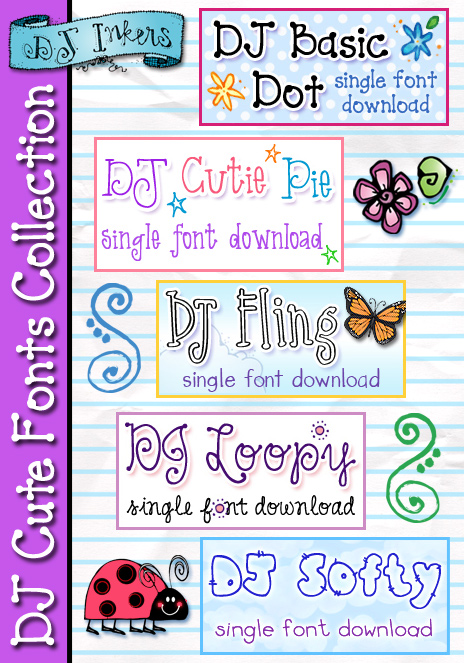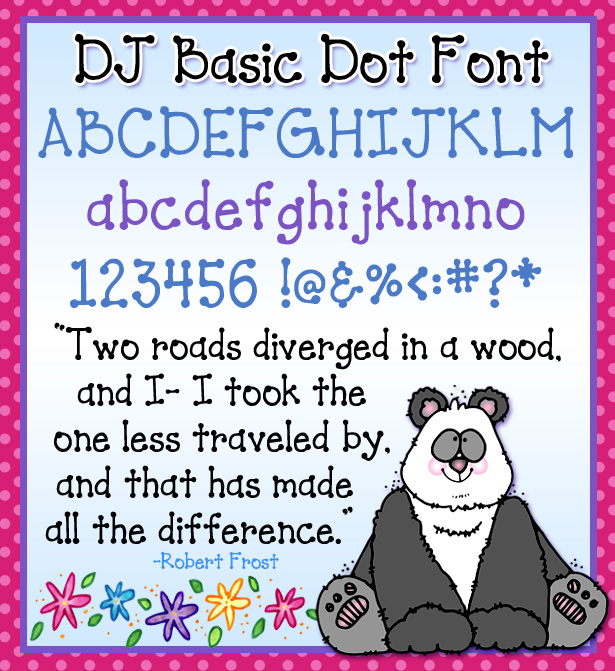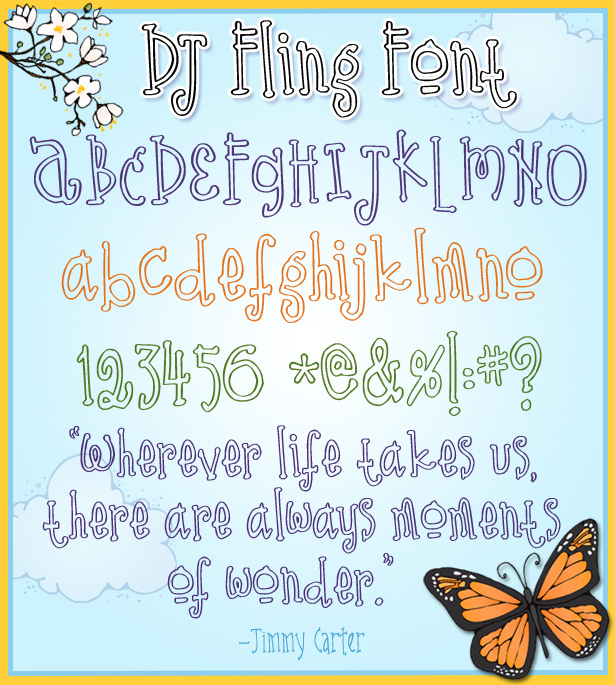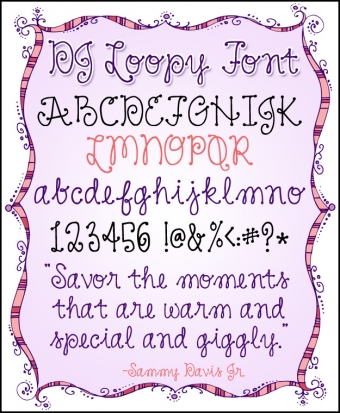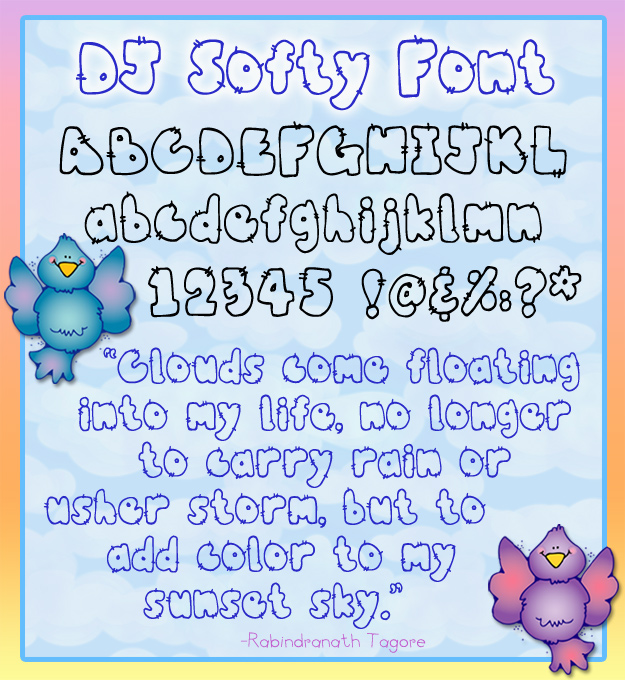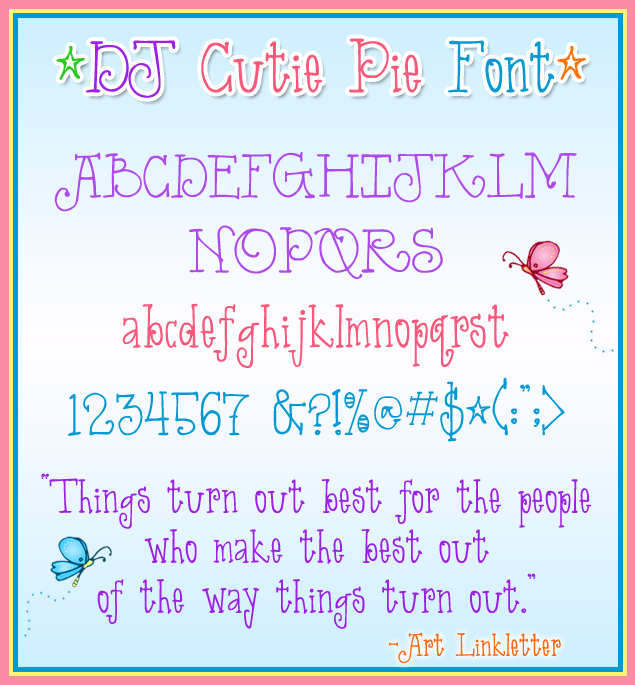
Collection includes 5 adorably cute fonts by DJ Inkers
DJ Cute Fonts Collection Download
Here at DJ Inkers, cute is what we do best! So, we are proud to announce our adorable Cute Fonts Collection! With 5 delightful fonts to choose from, you can make any project look great in a snap. Plus, you'll save a bundle when you buy all 5 fonts together in one package. Download instant smiles today!
Collection includes: DJ Basic Dot, DJ Cutie Pie, DJ Fling, DJ Loopy, and DJ Softy. Also, sold separately... but this set saves you a bundle!